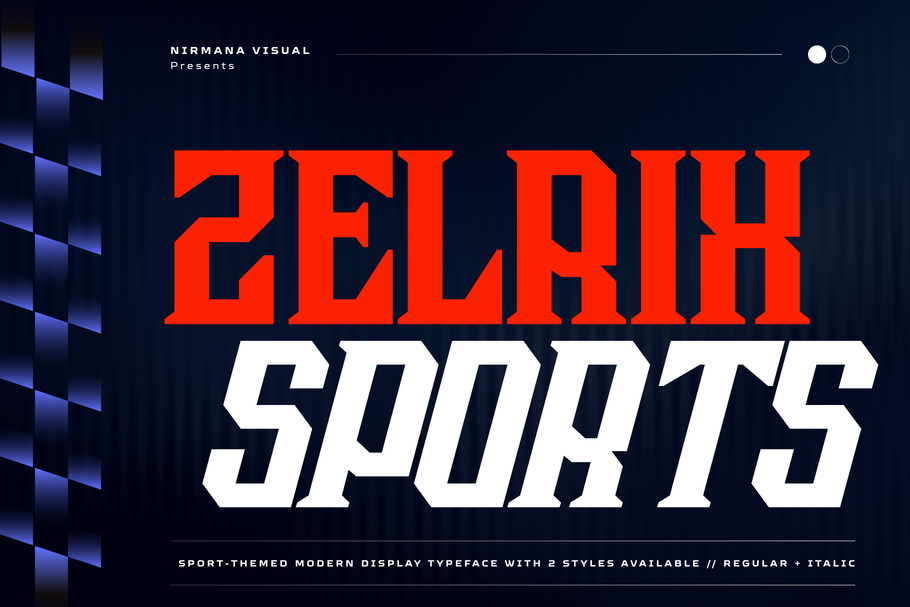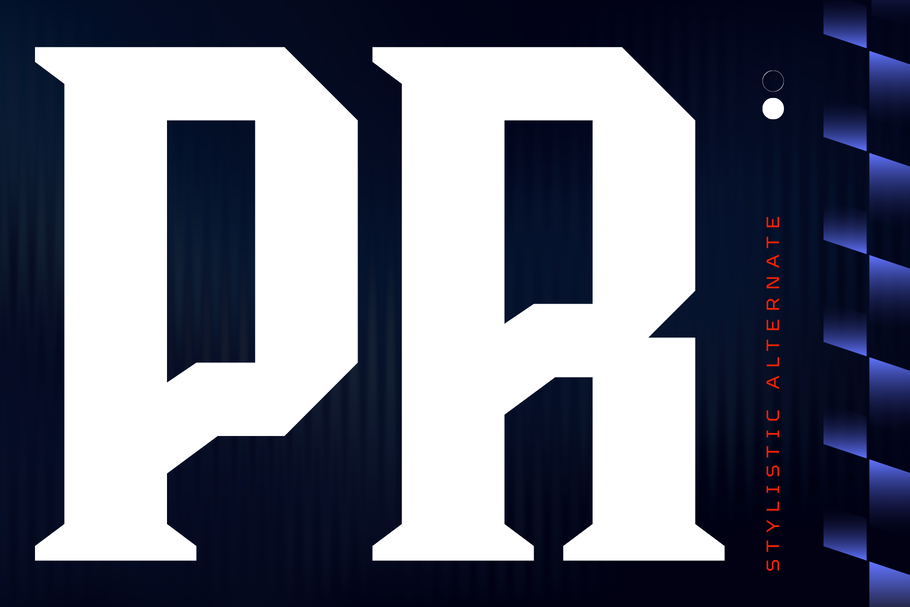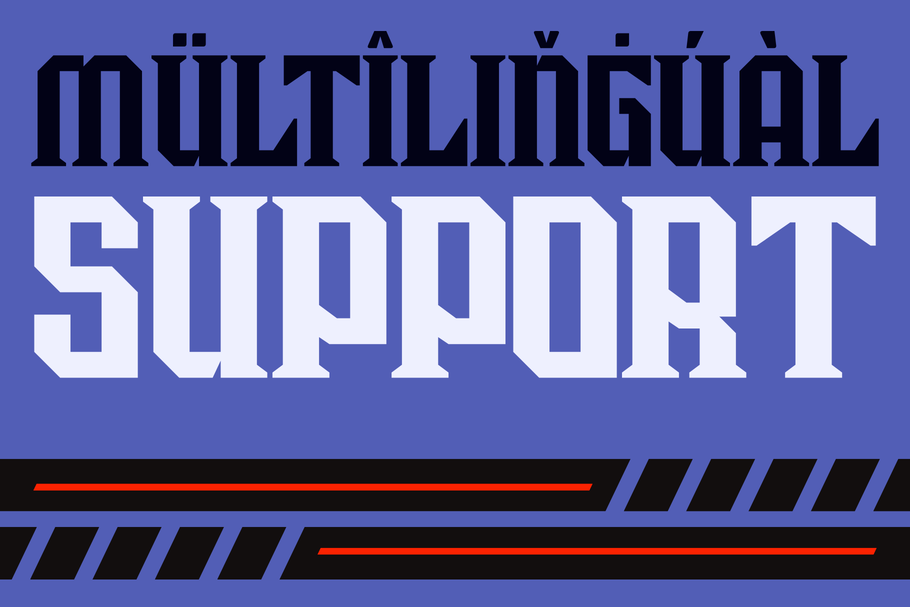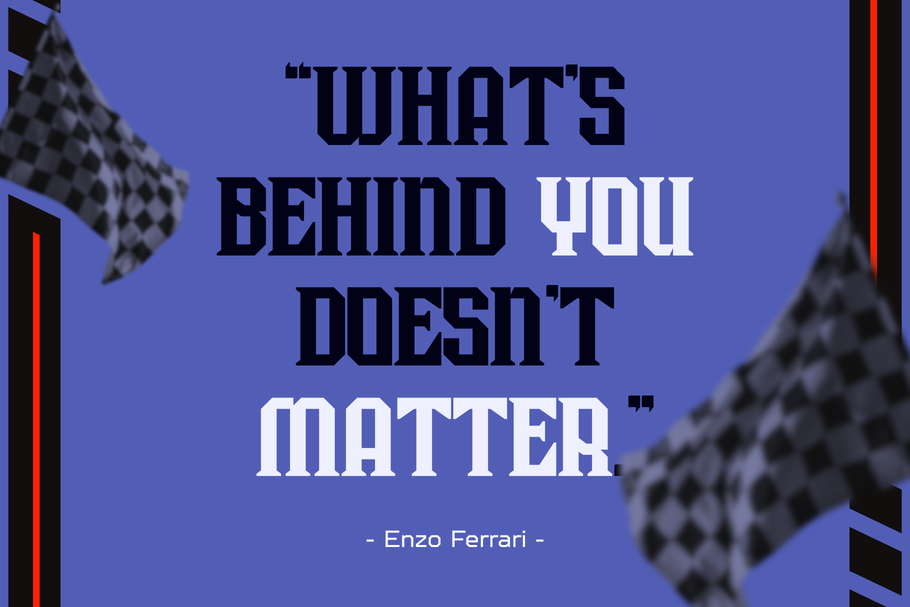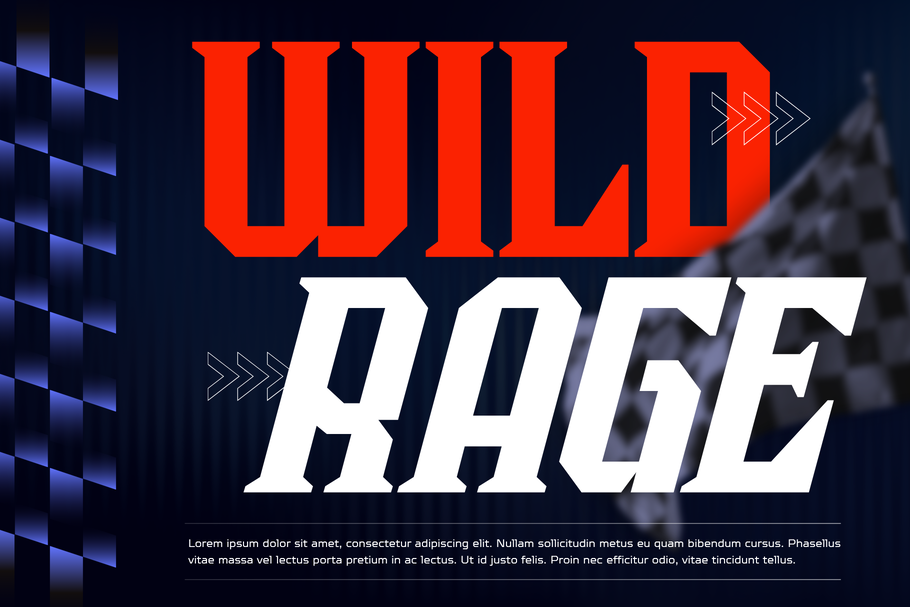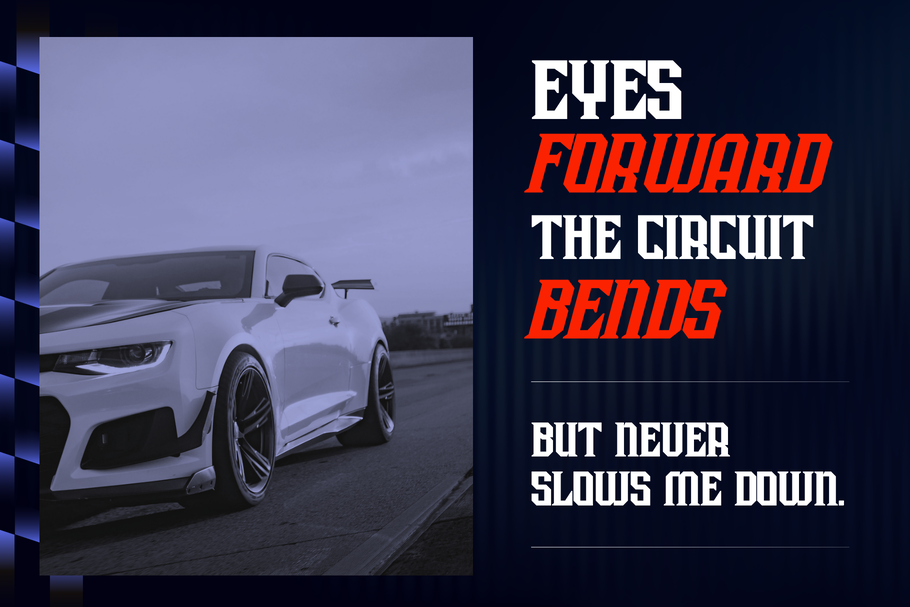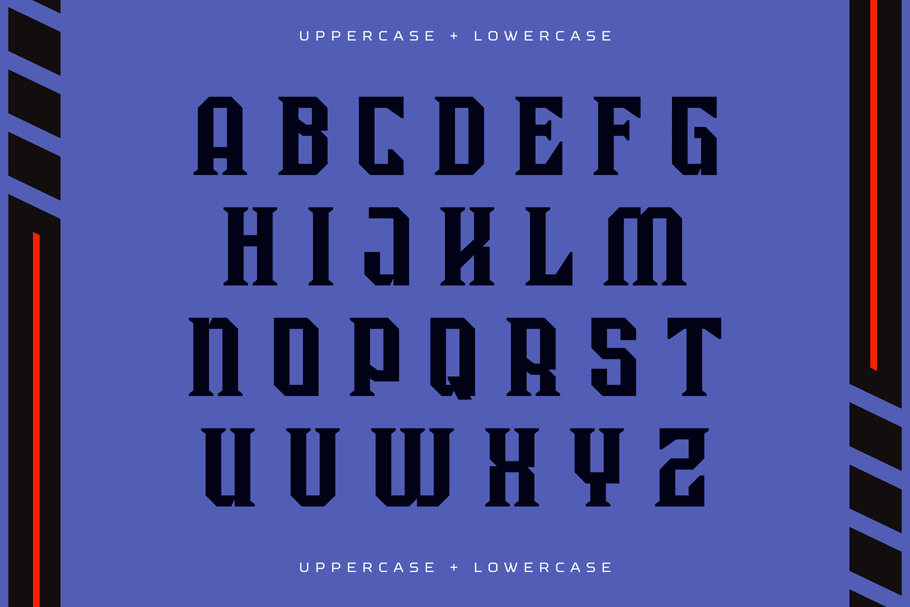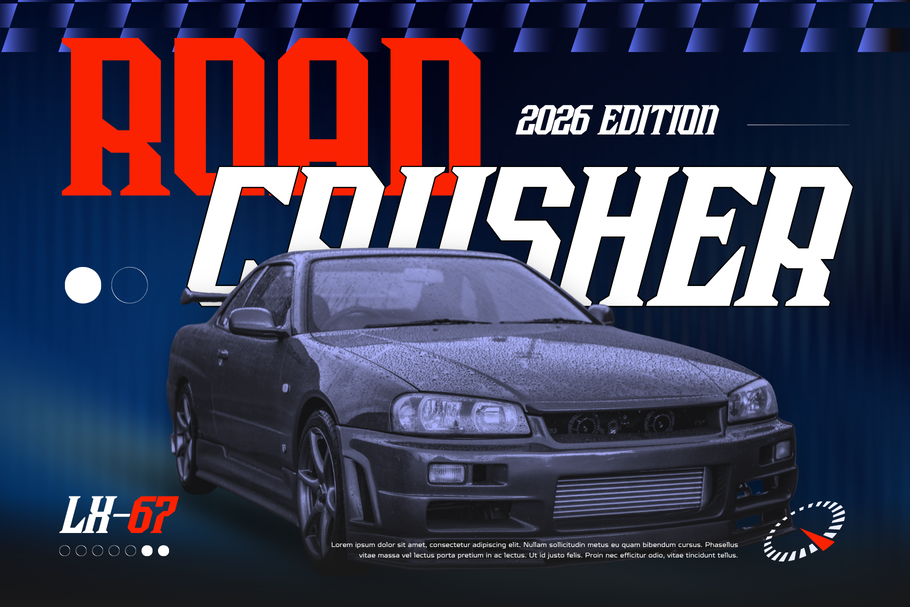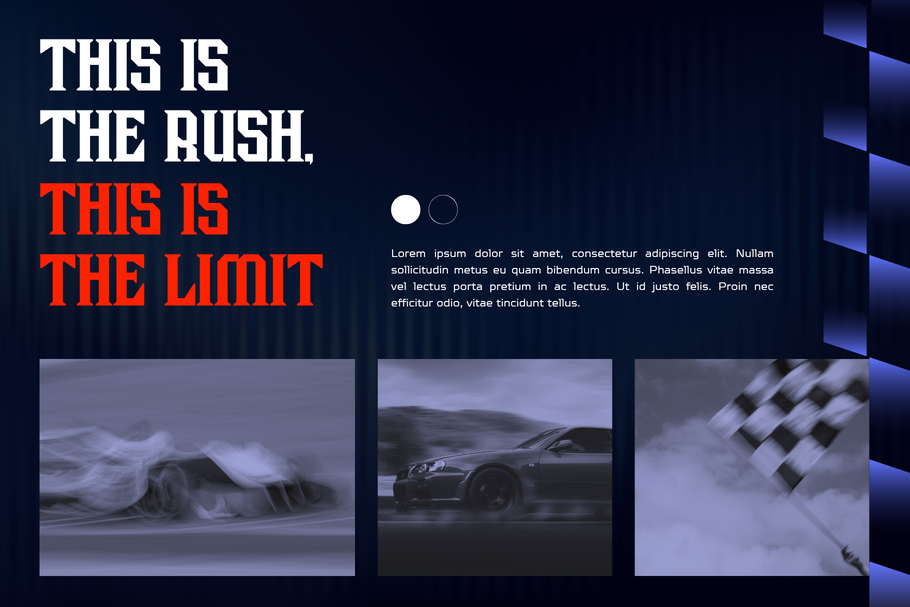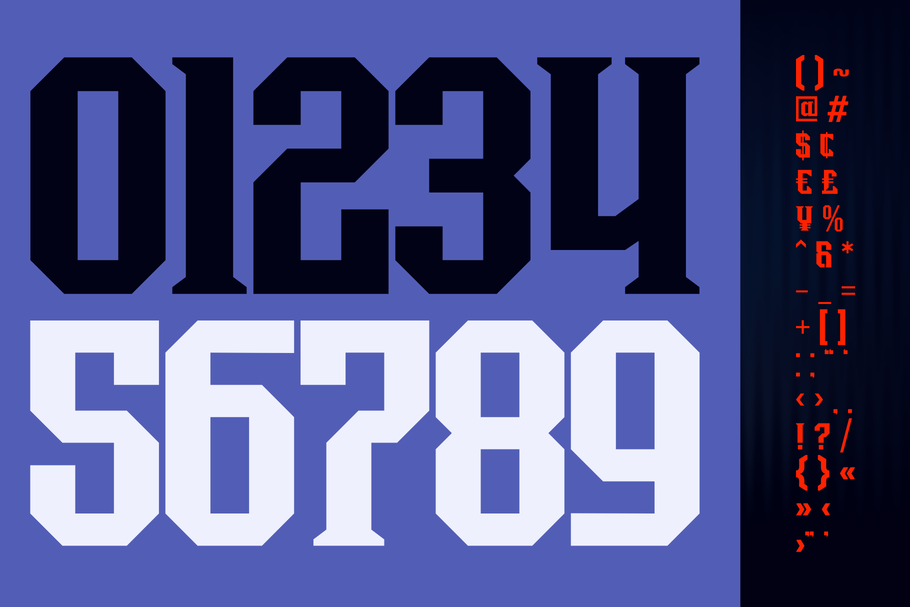
Zelrix Sports – Modern Logo Font
Zelrix Sports is a bold italic sports font built for speed, power, and futuristic energy. Designed with sharp edges and dynamic curves, this typeface delivers a strong racing spirit perfect for motorsport branding, esports, technology projects, gaming posters, automotive logos, jerseys, packaging, and digital advertising. Its modern sporty style creates a fast and aggressive visual impact while maintaining excellent readability for headlines, branding, and promotional designs.
• Multilingual Support
• Sports Logo Font
• Italic Font
Zelrix Sports offers beautiful typographic harmony for a diversity of design projects, including logos & branding, social media posts, advertisements & product designs.